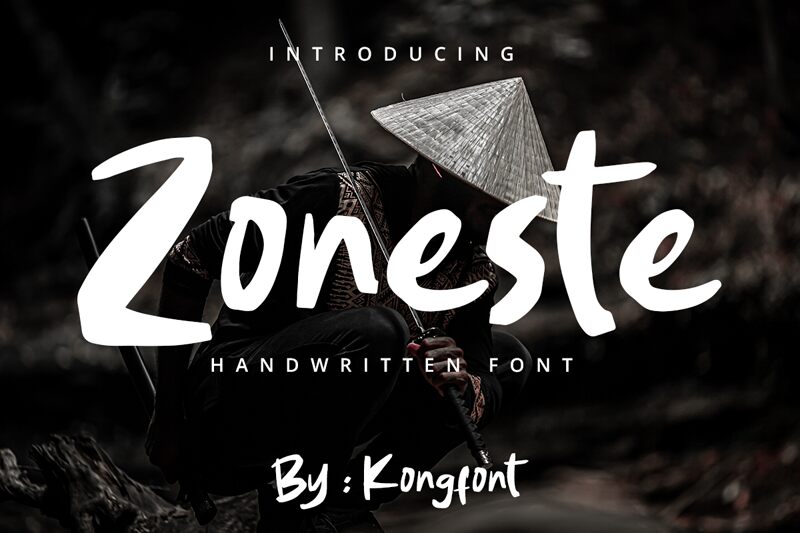
Zoneste font is a free brush font designed by Kong Font. It embodies handwritten style maintaining casual appearance, expressive tone, and organic flow. Its modern aesthetic and energetic impression make it suitable for versatile use in professional and personal projects. From aligning perfectly in serious headlines to maintaining a playful tone, the font is always a great addition to your design project.
The font captivates the audience in branding, logo design, signage, quotes, merchandise, typography art, magazine, book covers, titles, social media ads, and blogs. Both digital and print platform designs benefit from its amazing flawless design aesthetic.